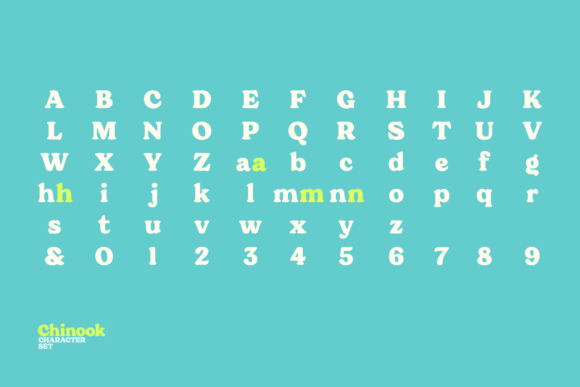
Chinook Font
Chinook has been designed as an homage to the iconic chunky look of the Italian movie titling from the 70s and 80s. Despite its vintage flair, this sturdy serif font is perfectly adaptable for any contemporary context with its balanced and soft text typesetting.
This project is obviously influenced by the everlasting classic “Cooper Black”, but includes more modern letter shapes, with rounded serifs and a fluffy overall appearance.
The heavy appearance makes this font ideal for high-impact design, such as headlines, titling, branding, and logotype.